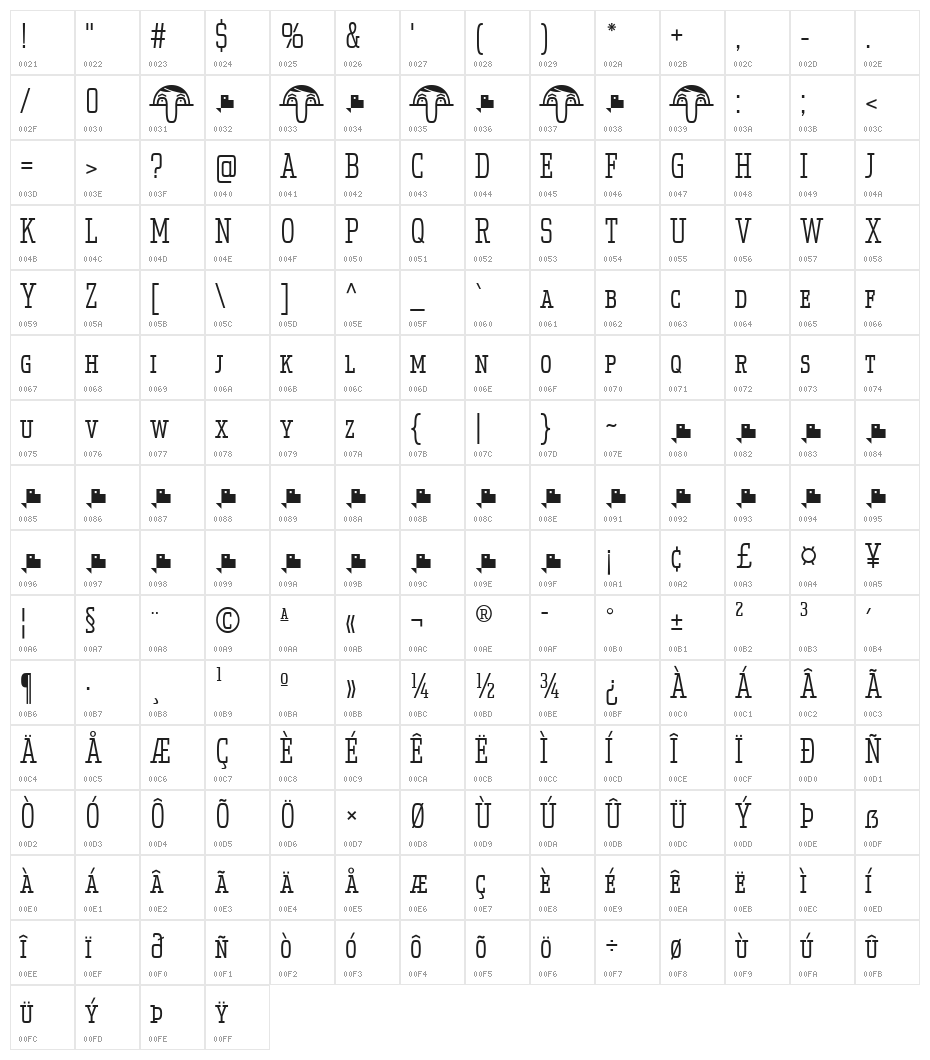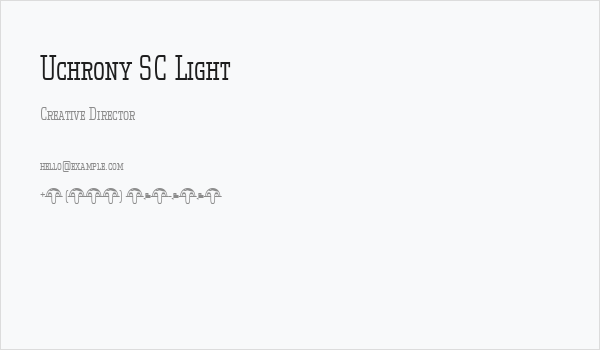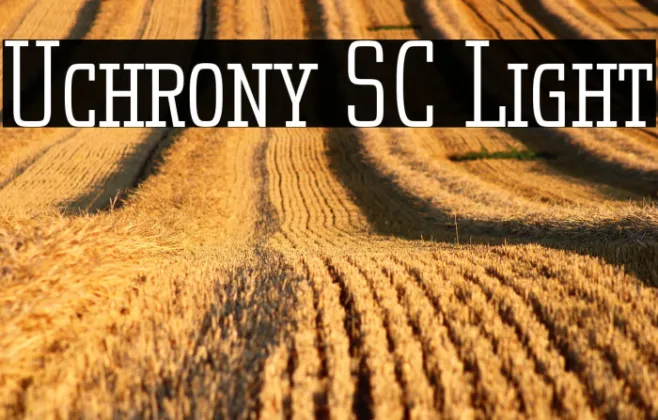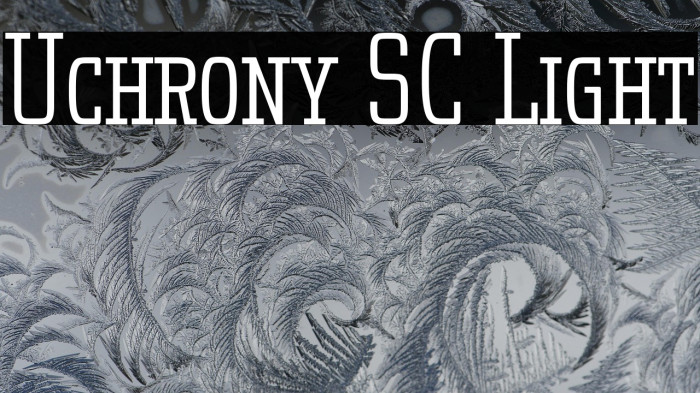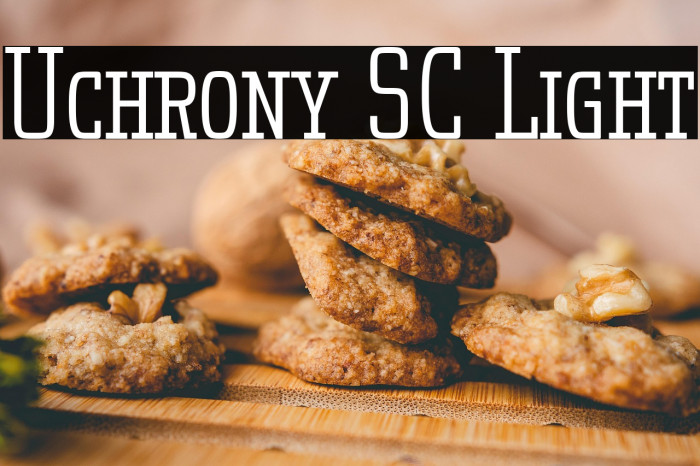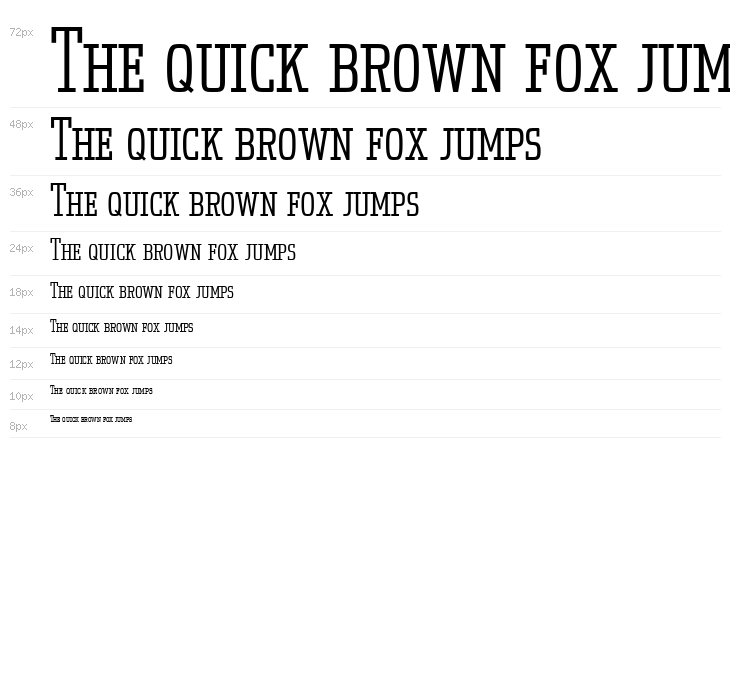
Uchrony SC Light Font
Uchrony SC Light Description
This font features a modern and clean design with a strong emphasis on clarity and readability. The uppercase letters are tall and narrow, giving a sense of elegance and sophistication. The lowercase letters maintain a consistent height, contributing to a uniform appearance. The numbers are well-proportioned, ensuring they stand out clearly. Special characters are distinct and well-defined, adding versatility to the font's usage. The overall design is sleek and contemporary, making it suitable for a variety of applications.
| Proposed Projects | Ideal for branding, editorial design, and digital interfaces where clarity and modernity are key. |